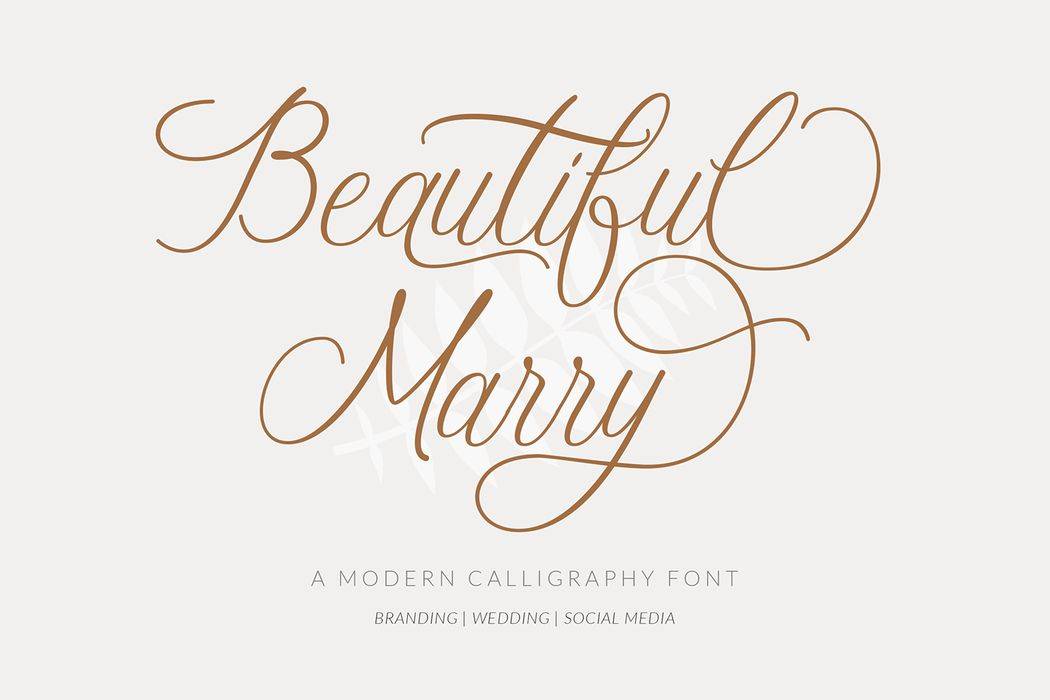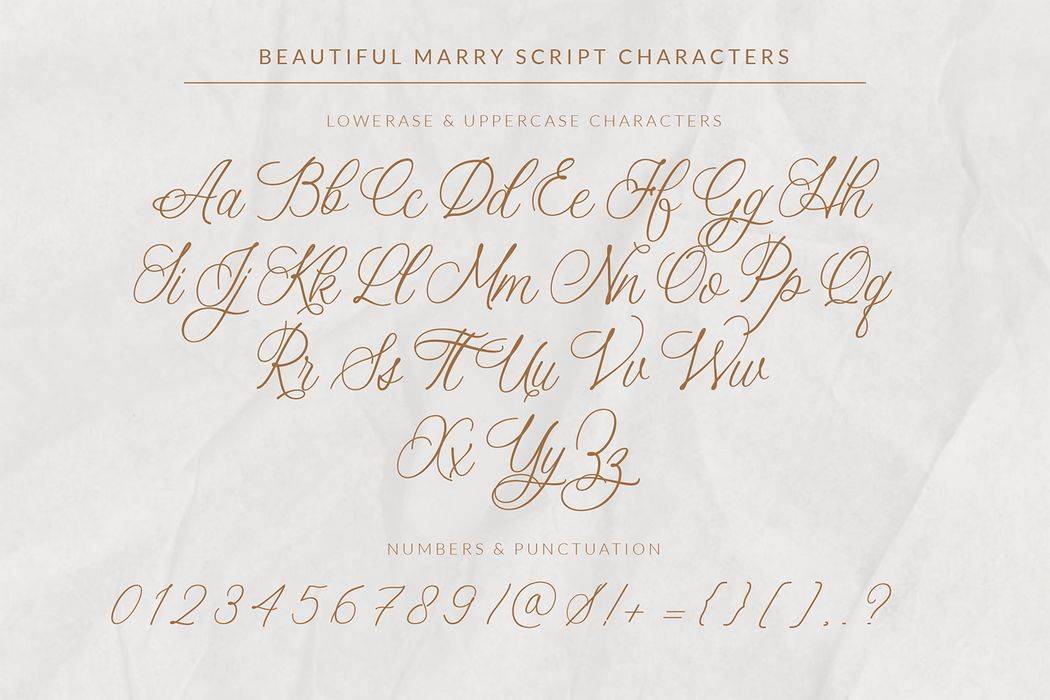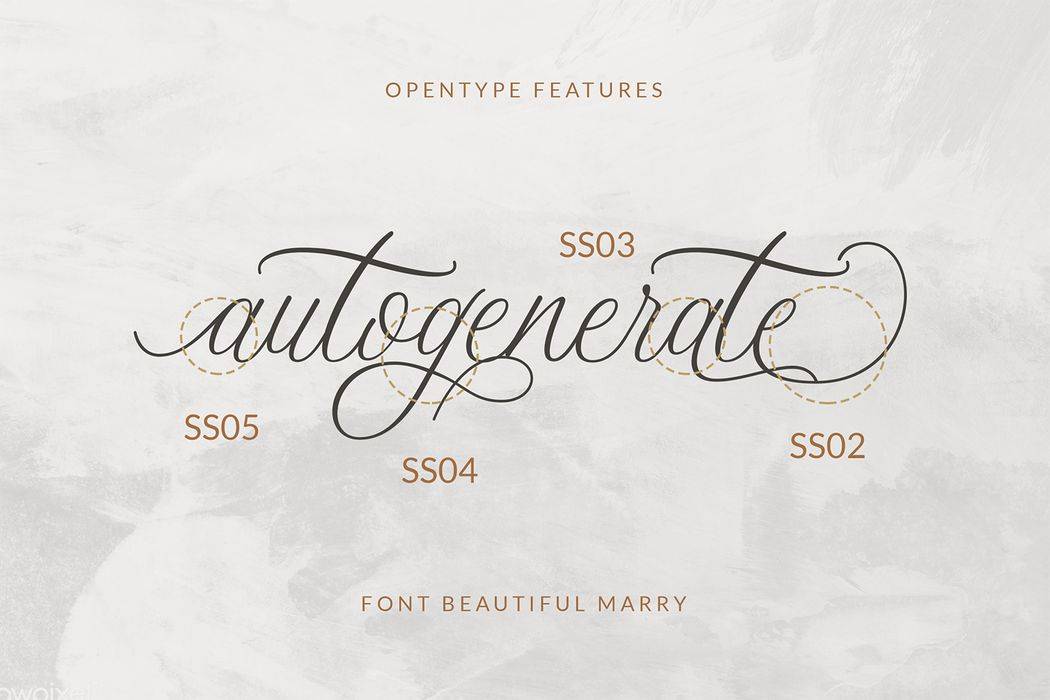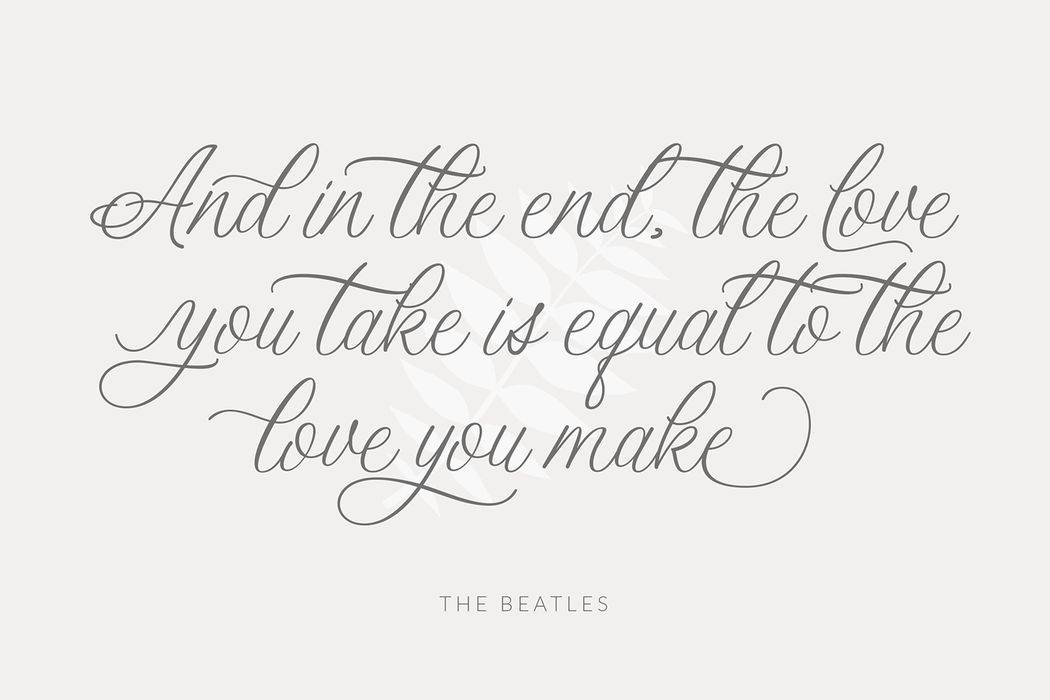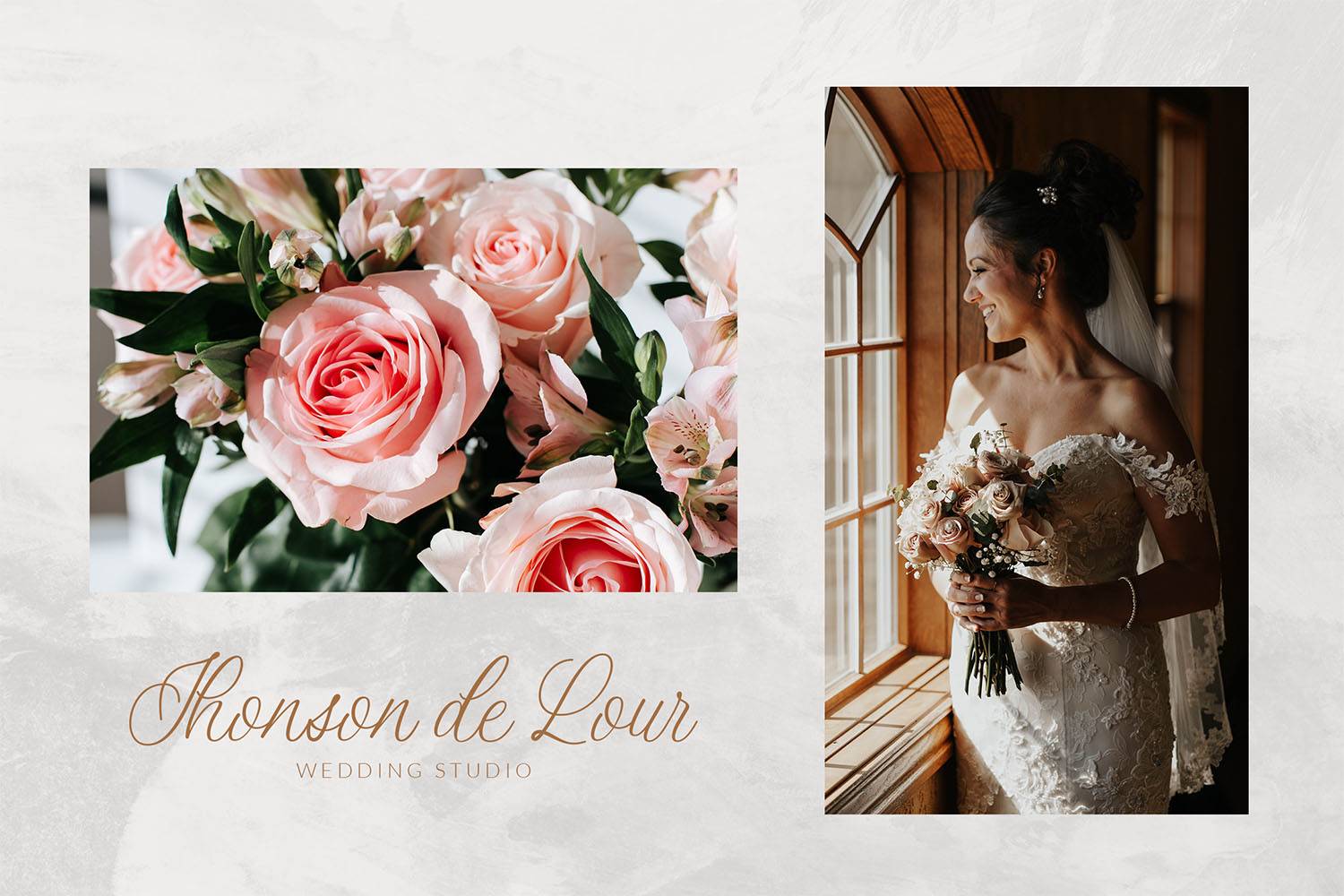
Beautiful Marry is a delicate script font characterized by elegant, flowing lines and fine, graceful strokes that evoke a sense of romance and sophistication. Its high x-height and refined, cursive letterforms with distinctive loops make it ideal for bridal invitations, luxury branding, and other elegant design projects where a touch of timeless charm is desired. This font works beautifully in headlines and decorative uses, adding a personal and stylish flair to any design.
Beautiful Marry Font
About Beautiful Marry Font
| Font family | Beautiful Marry Font |
| Designer | Dida Ahluddin |